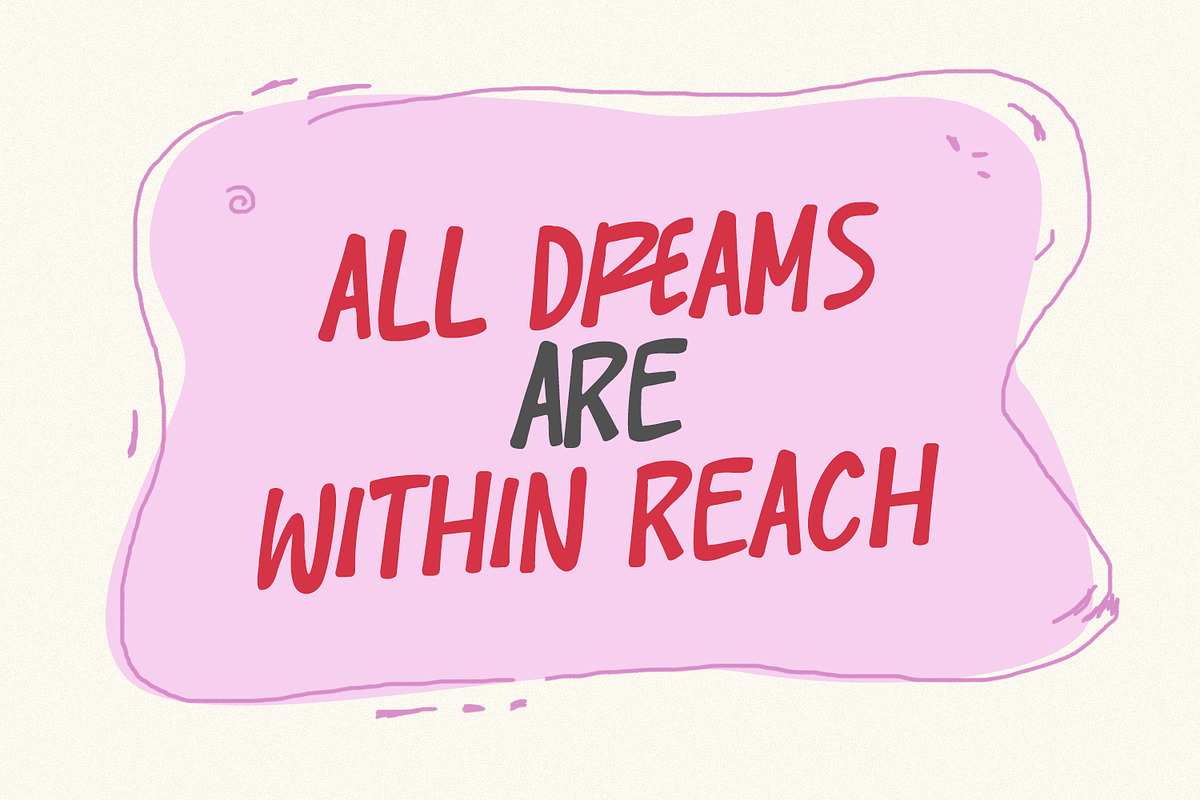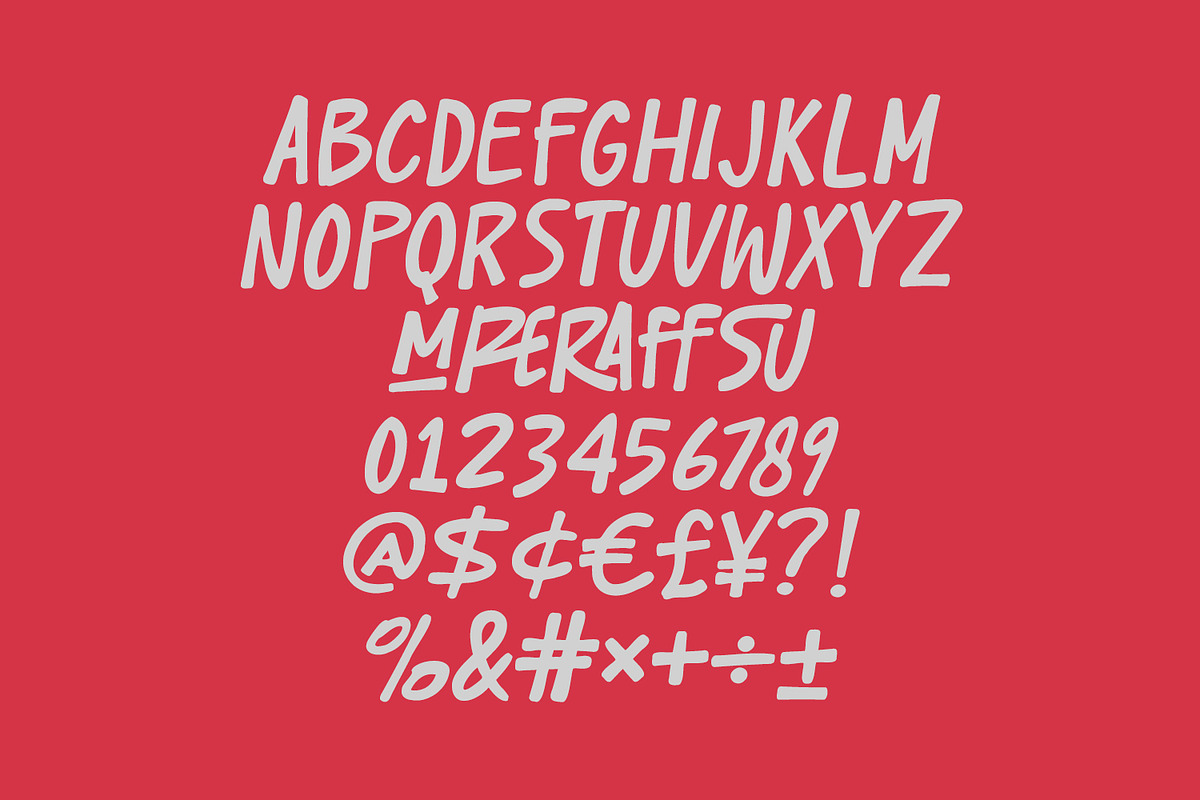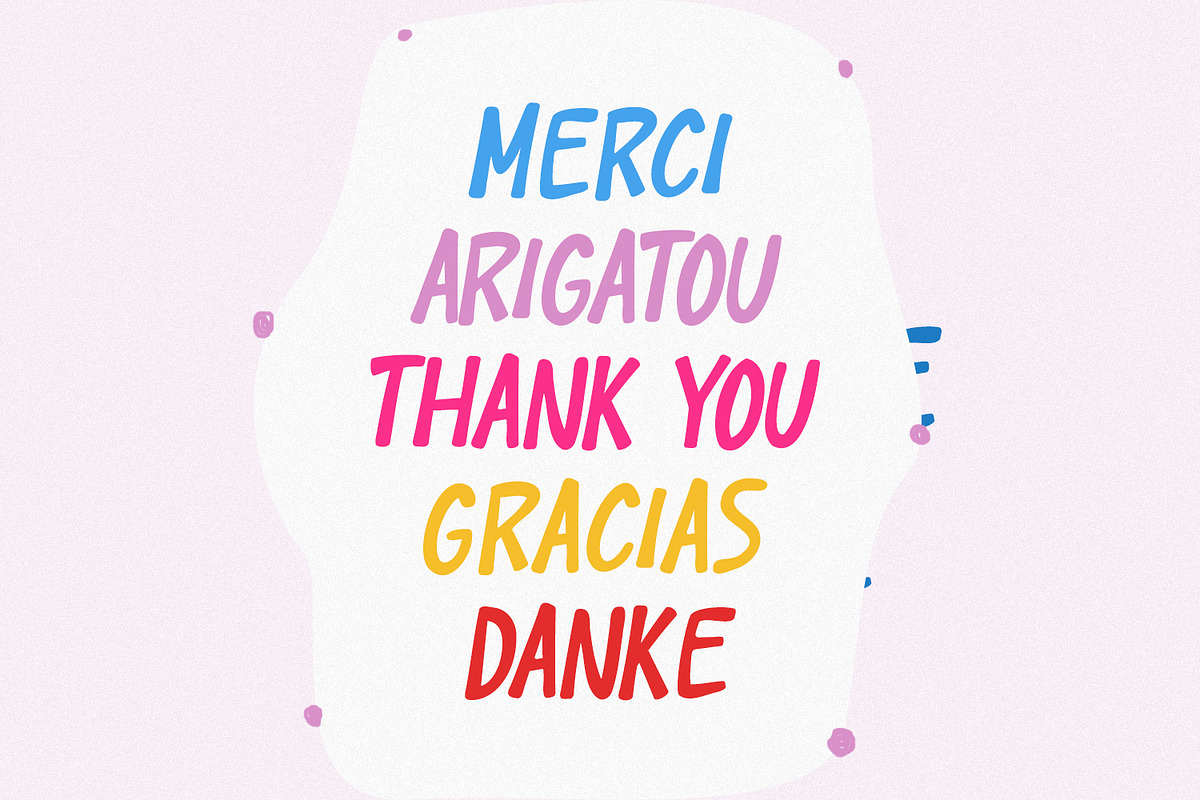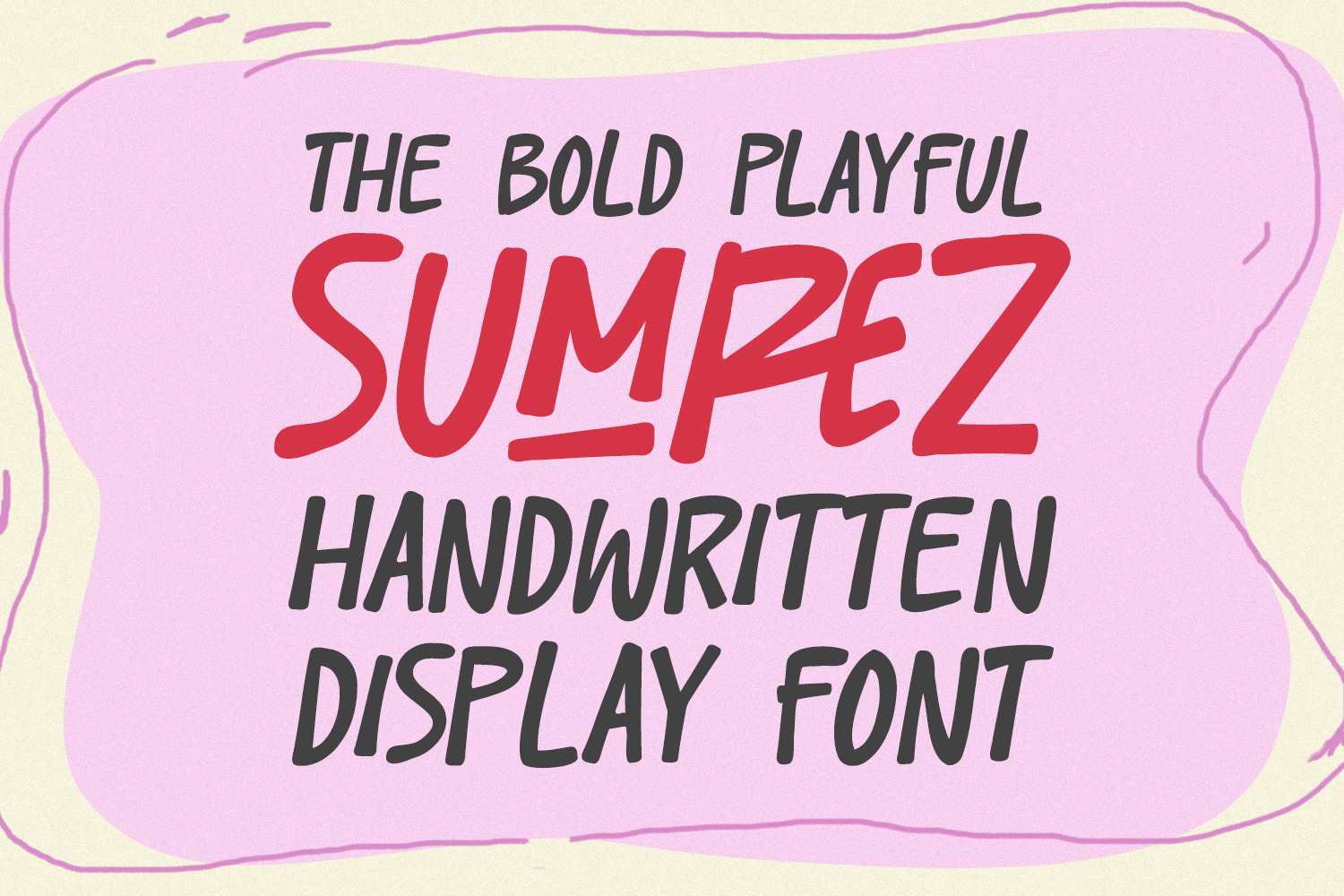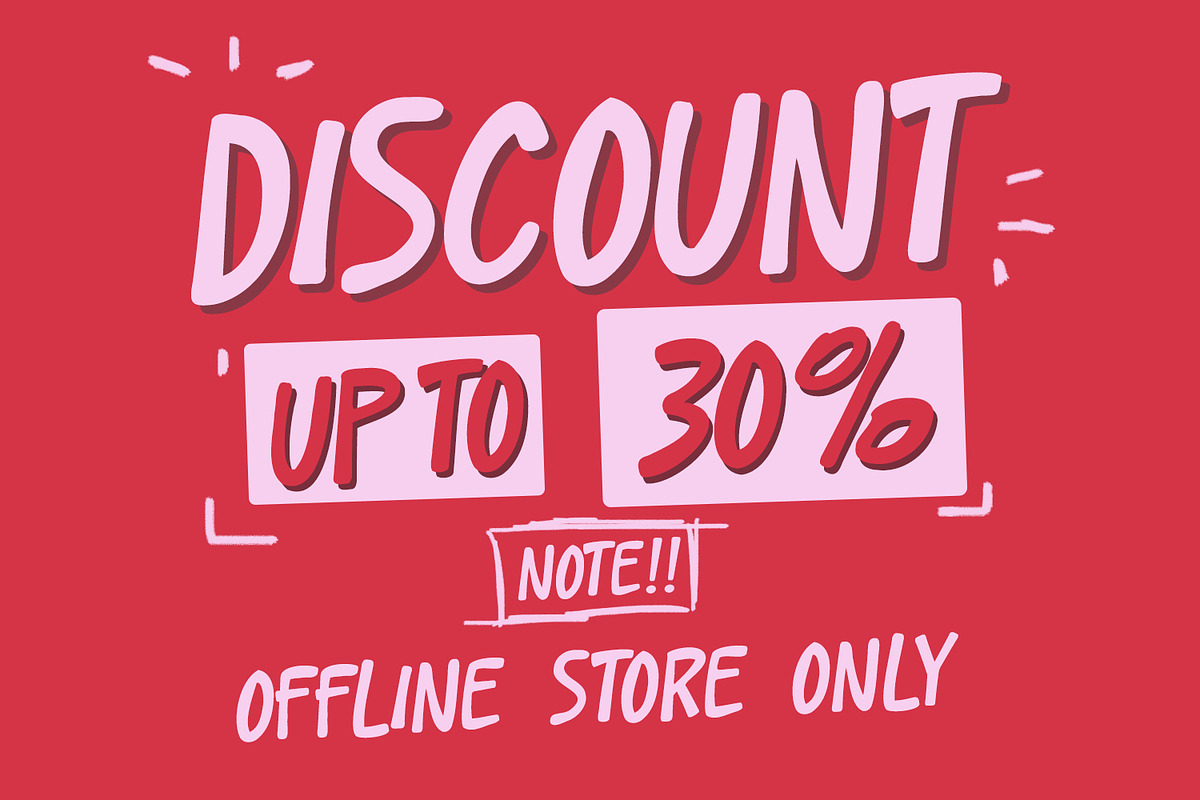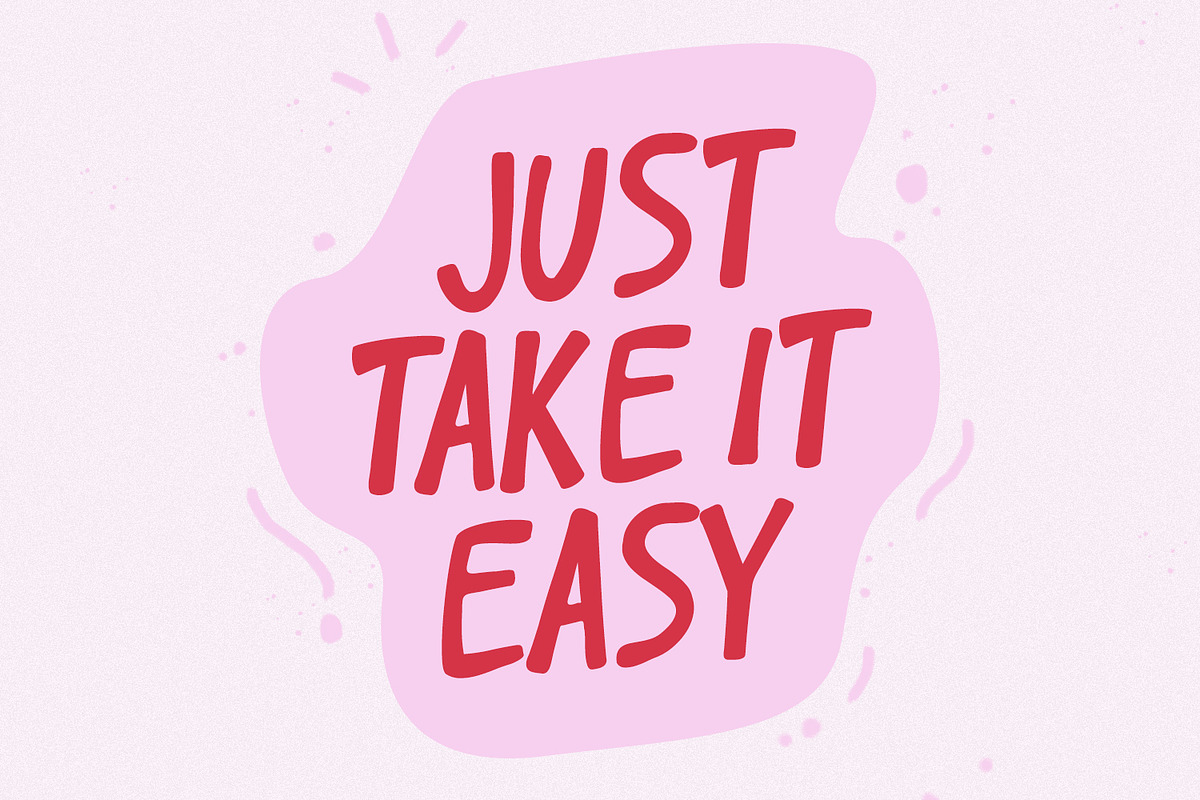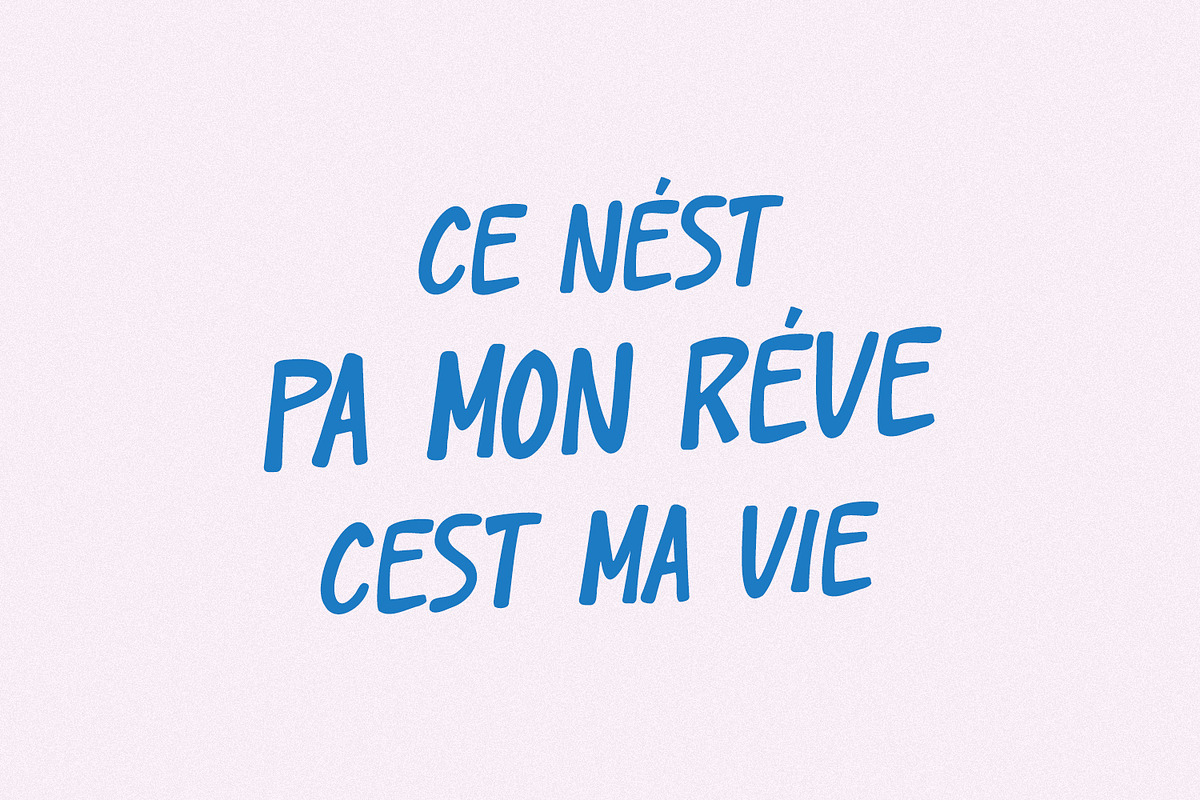
Sumrez Bold Playful Handwritten Font
Inject a dose of fun and energy into your designs with Sumrez, a vibrant and chunky handwritten font. Full of personality, this bold typeface features a spontaneous, brush-script feel with an energetic, slightly bouncy baseline that brings an immediate sense of playfulness and friendliness to any project.
The heavy, confident strokes and handcrafted charm of Sumrez make it perfect for designs that need to stand out. It's ideal for:
- Branding & Logos: Create memorable, cheerful brand identities.
- Packaging: Make your products pop on the shelf.
- Social Media & Quotes: Design eye-catching, shareable content.
- Event Design: Grab attention with its bold presence.
- Children's & Products: Add a whimsical, friendly touch.
Whether you're aiming for a casual, youthful, or dynamically illustrated style, Sumrez is the go-to font for adding character and an unmistakable handmade vibe. Get Sumrez today and unleash your creativity!